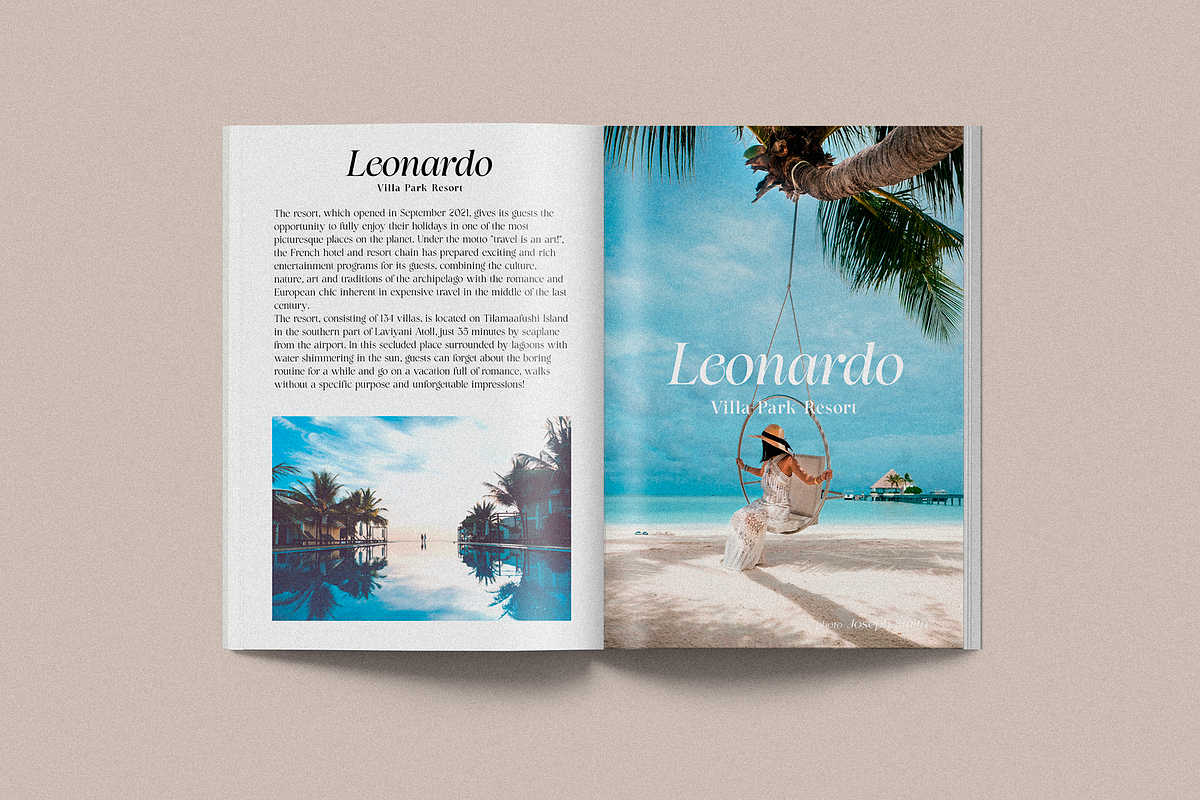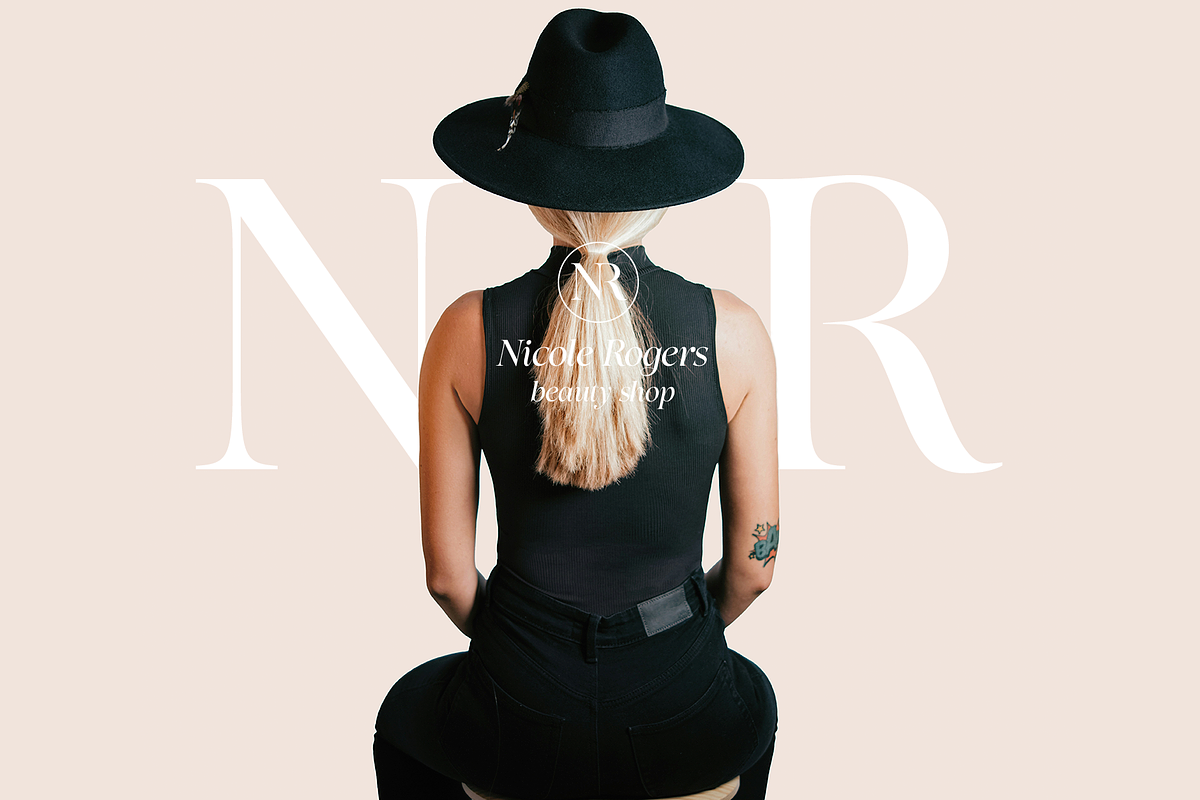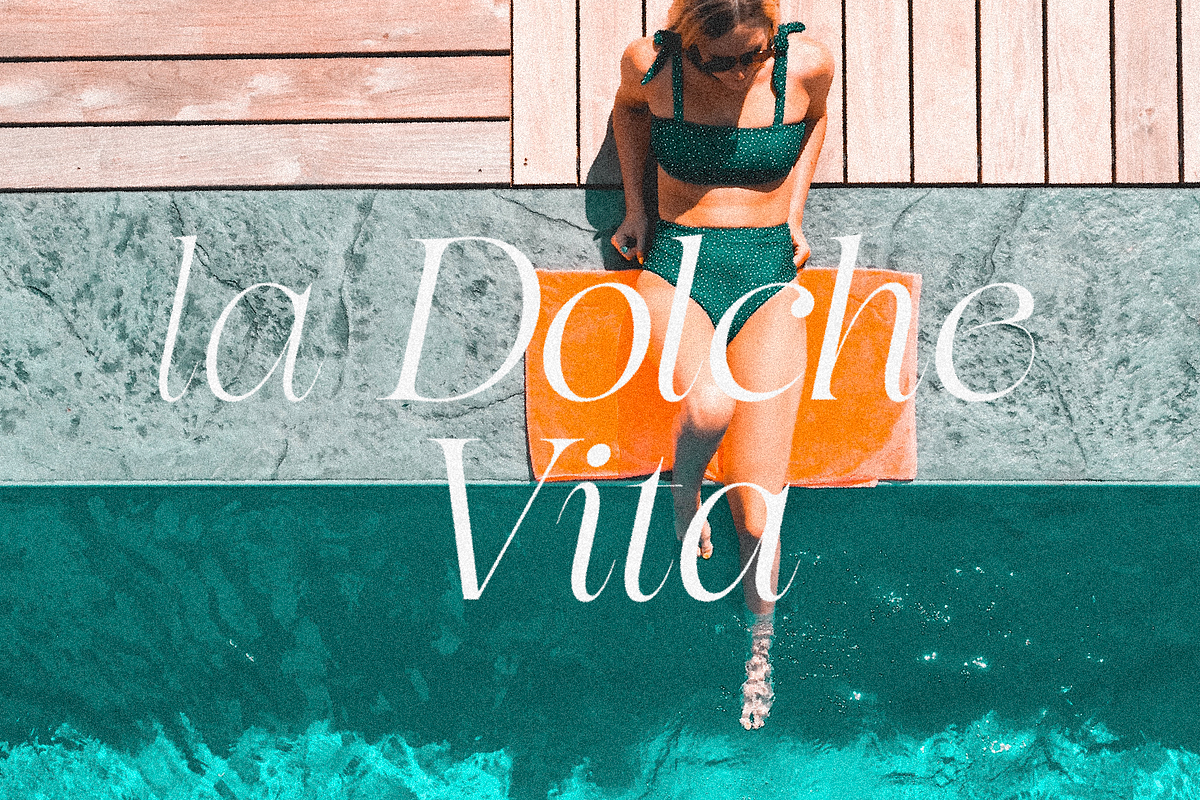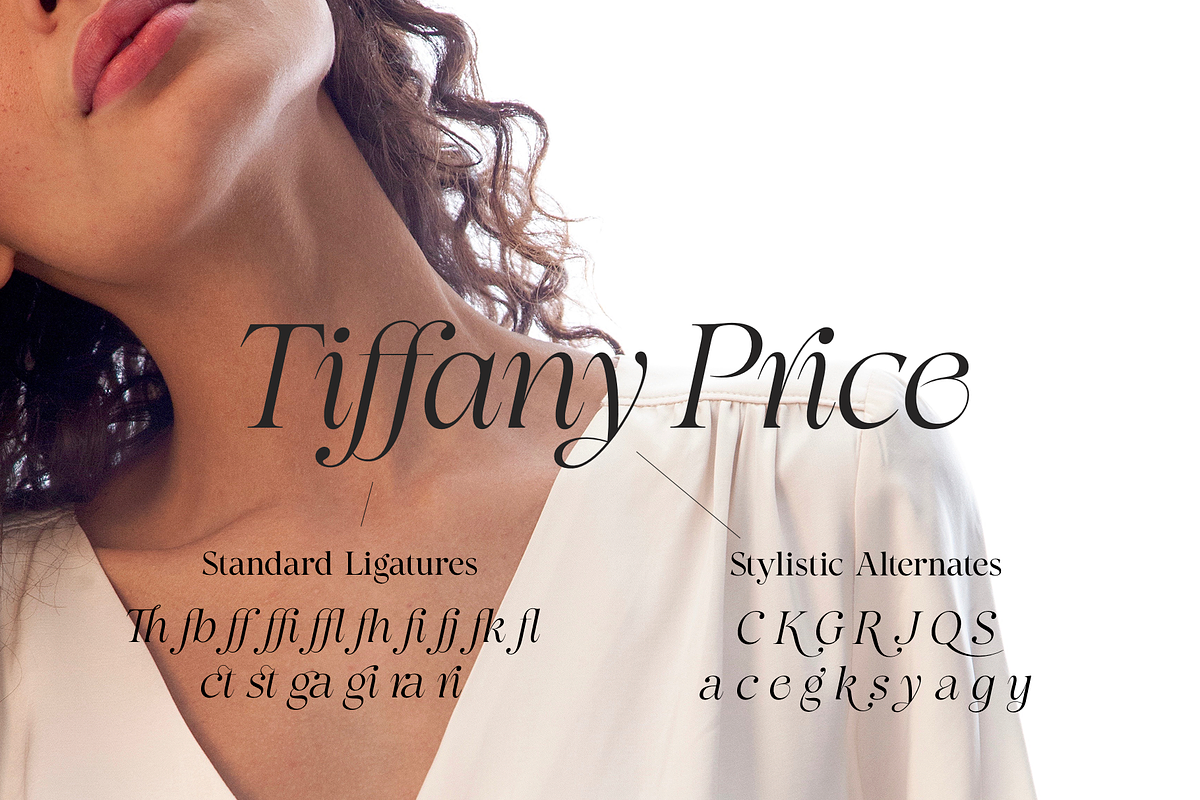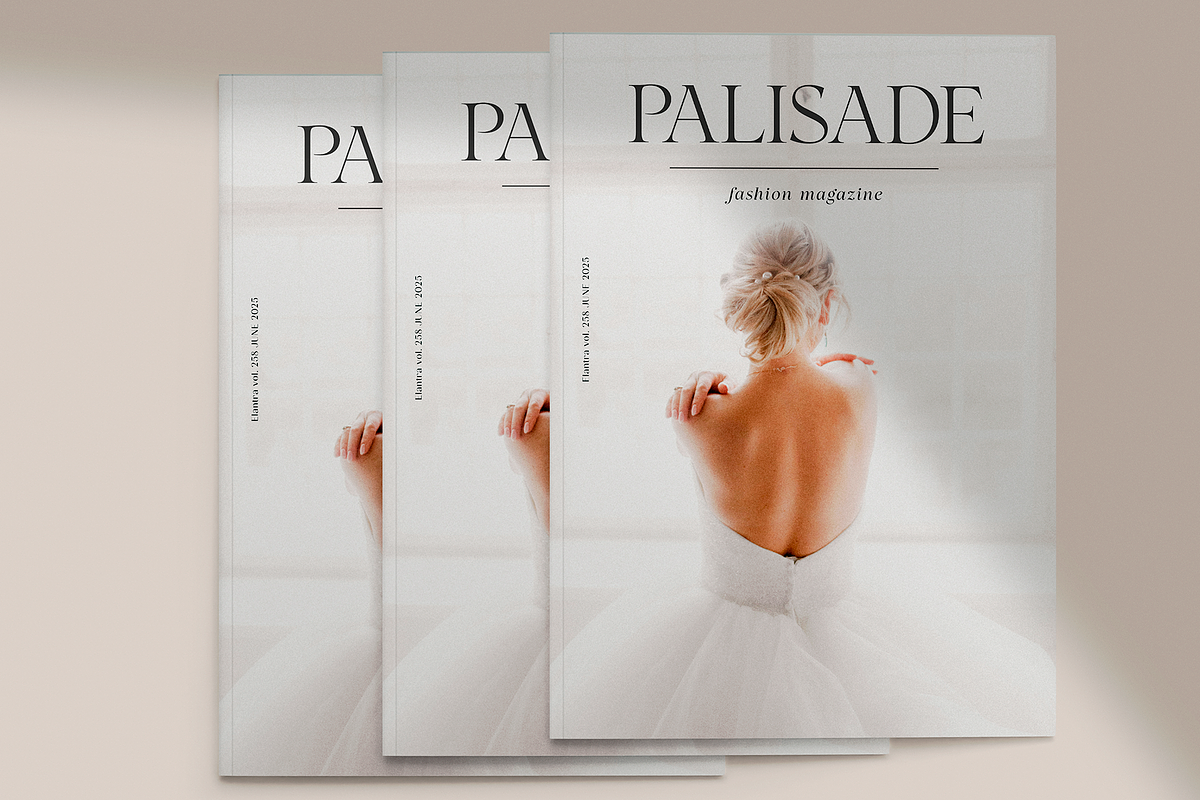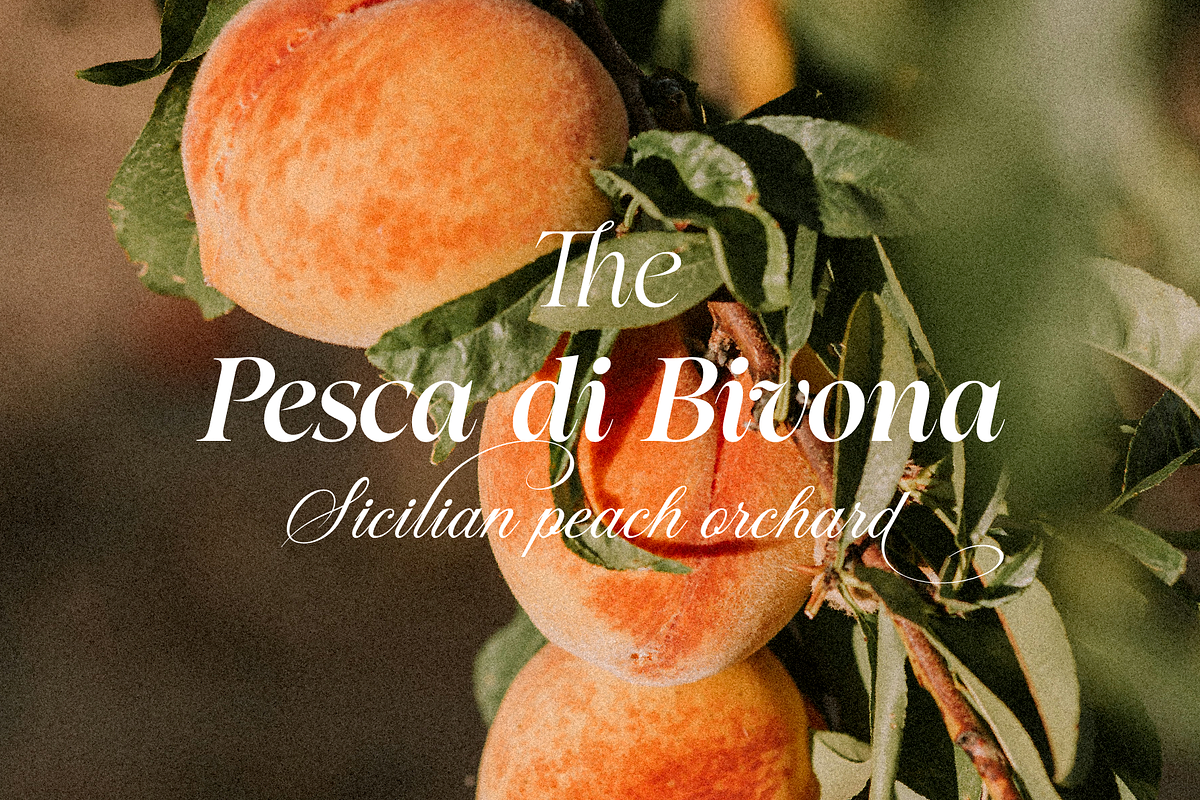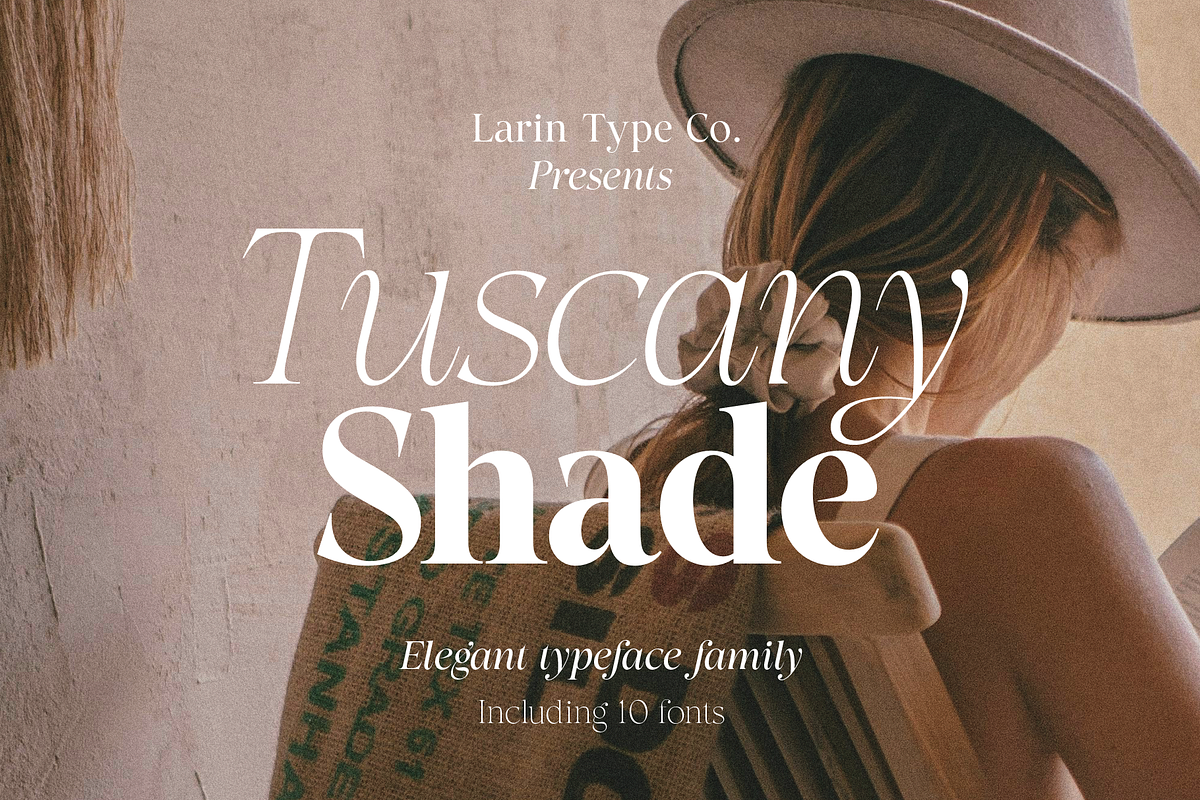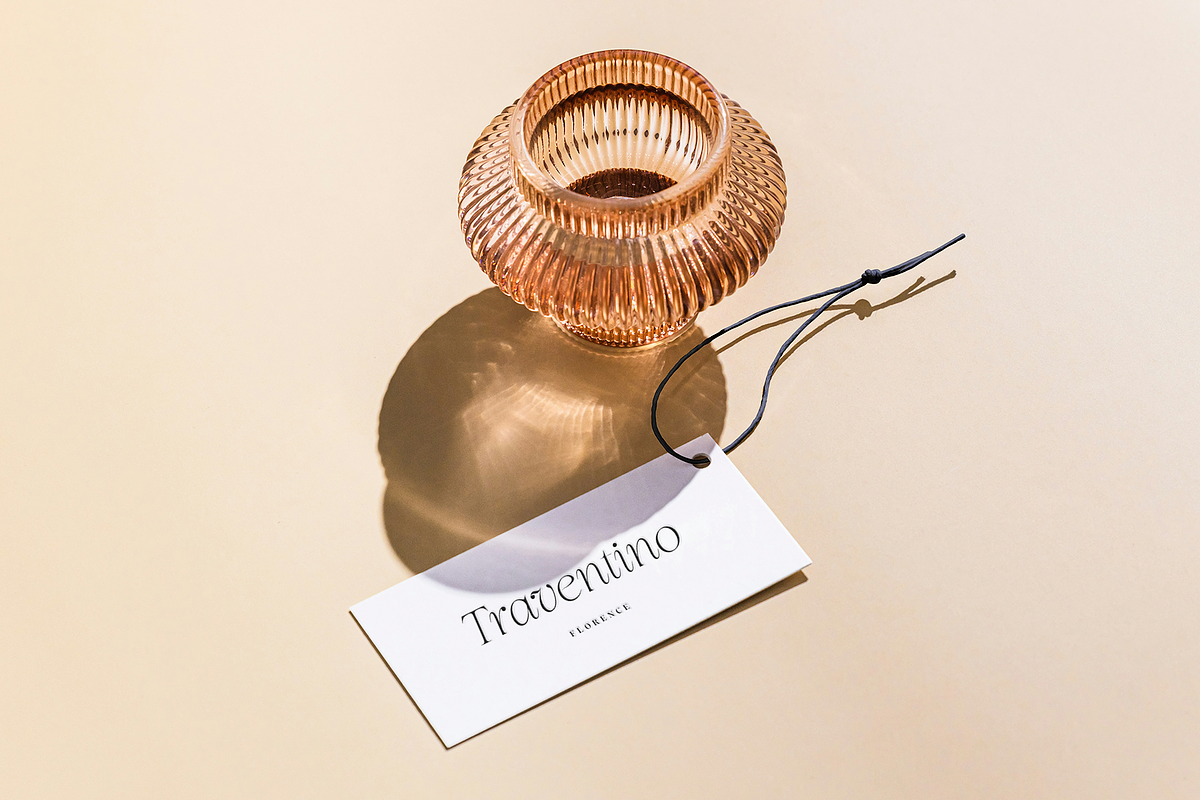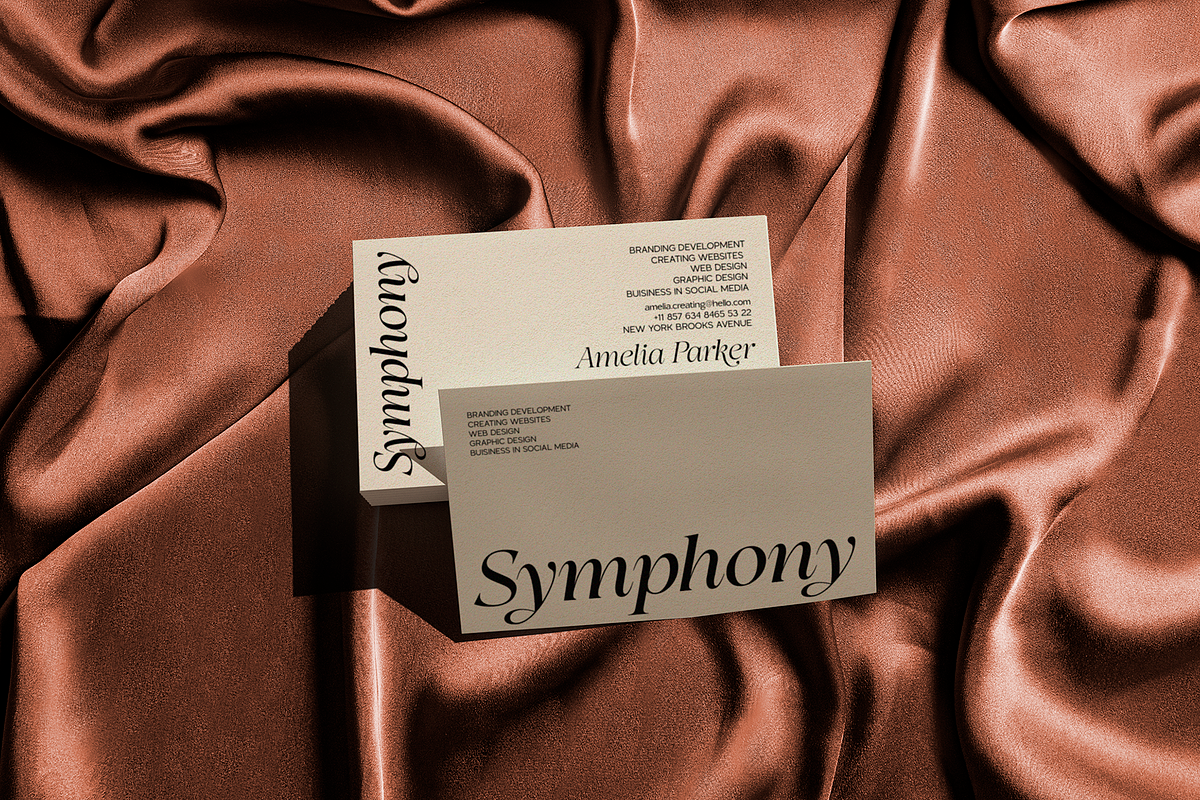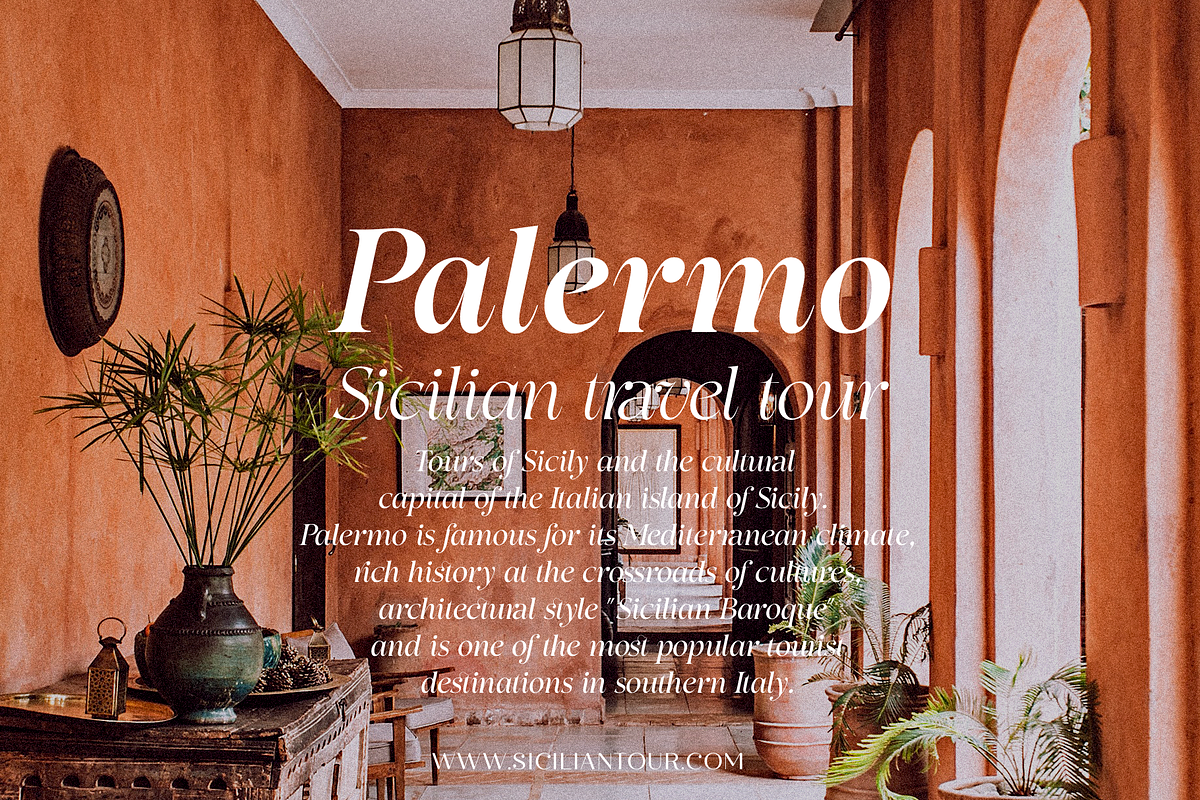
Tuscany Shade
Tuscany Shade is an elegant and contrast serif font family, and a great fashionable solution for your project. It includes regular and true Italic style, each of them has five weights from extra light to bold. This is a multi-purpose and classic font that is perfect for fashion project, it is contrasted, modern and easy to read. With it, you can create logos, banners, use in advertising, packaging, book covers and magazines, headings, descriptions and much more.
10 fonts
Full alphabet with Uppercase and Lowercase A-z
Alternates for uppercase C,G,S,J,Q,K,R
Alternates for lowercase a,c,e,g,k,s,y
Ligatures Th, ct, st, ga, gi, ra, ri, ff, fj, fi, ffi, ffl, fl, fb, fk, fh
Numbers, fractions, old style numbers
Punctuation and symbols